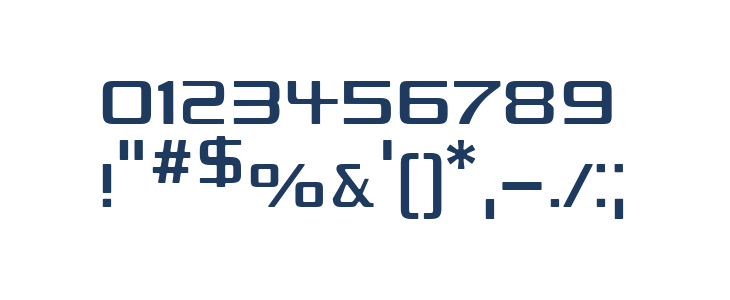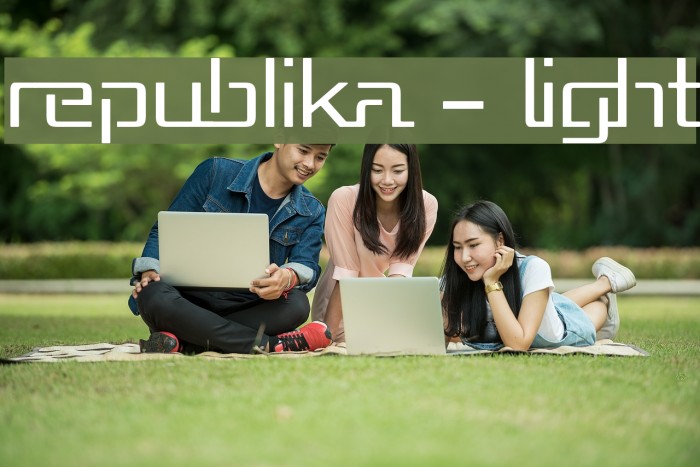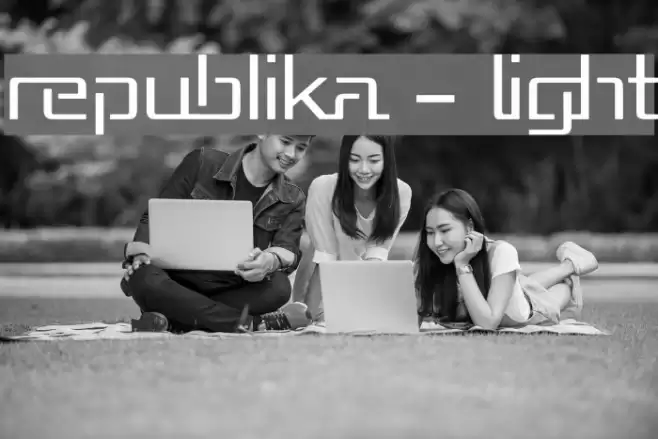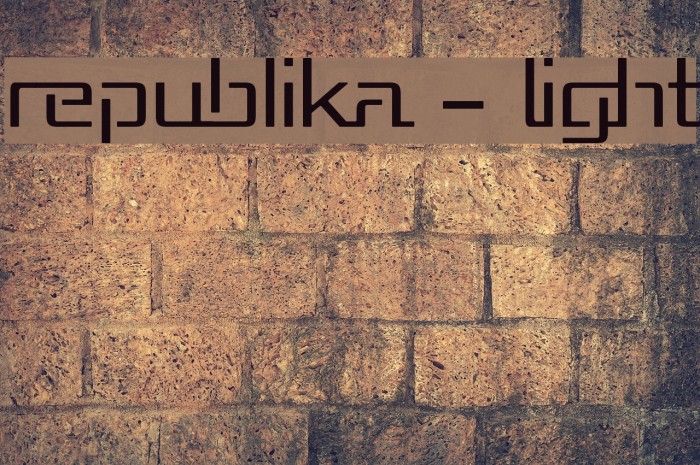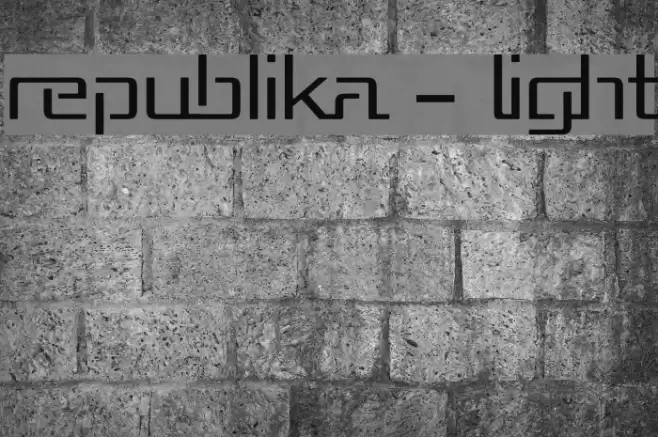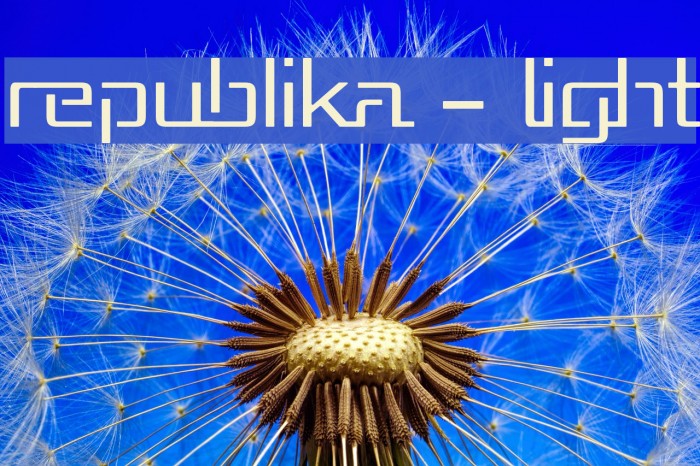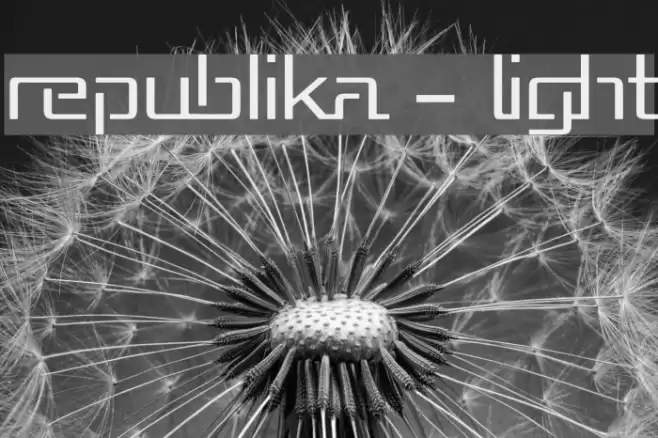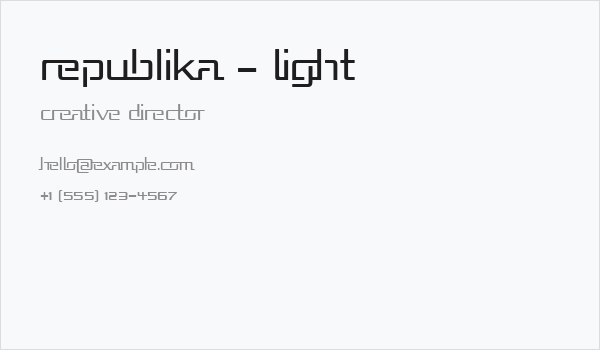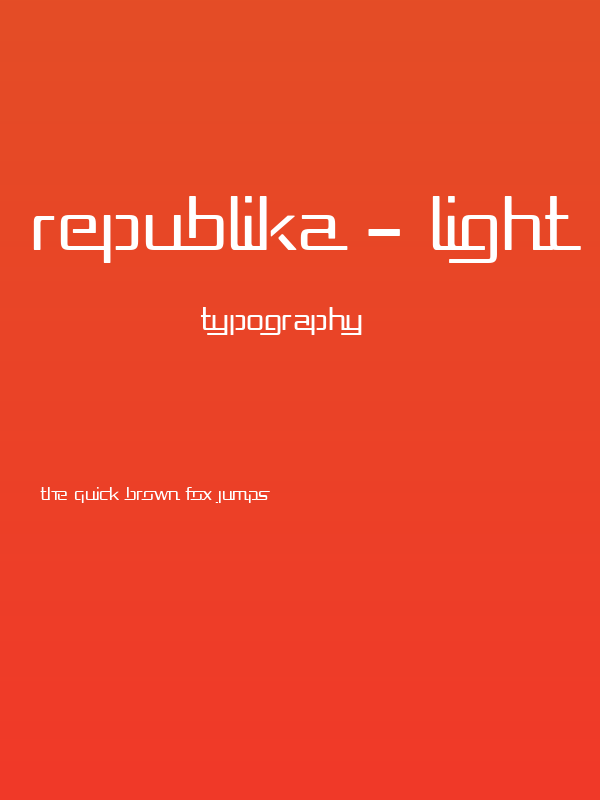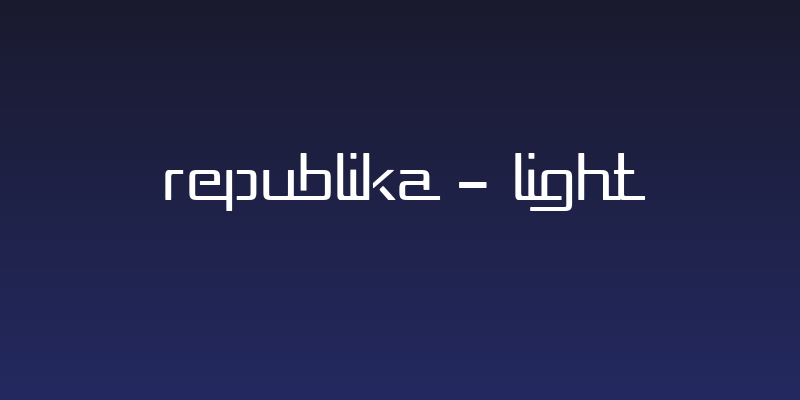
Republika - Light Font
Republika - Light Description
This font features a modern, geometric design with a clean and structured appearance. The characters are formed with consistent line thickness, creating a uniform and cohesive look. The design is minimalistic, with a focus on clarity and readability. The letters have a squared-off appearance, with sharp angles and straight lines, giving it a futuristic and technical feel. The numerals and special characters follow the same design principles, ensuring a harmonious overall style. This font is suitable for digital and print media where a contemporary and sleek aesthetic is desired.
| Proposed Projects | Ideal for technology branding, digital interfaces, modern advertising, and editorial design. |